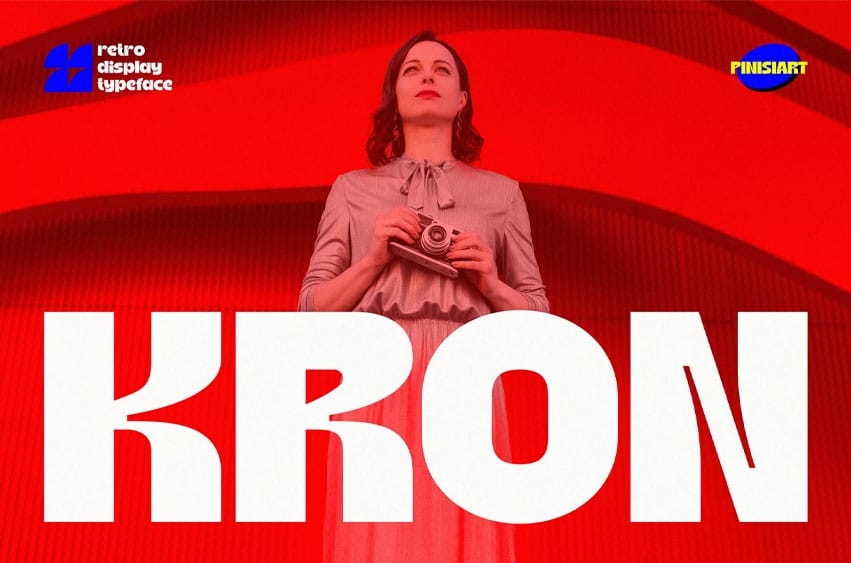
Kron Font is a bold display typeface designed to capture modern strength with a retro geometric flair. Its solid structure, tight spacing, and broad letter shapes create a sense of stability and authority — perfect for designs that need confident visual impact. Inspired by mid-century modern typography and classic industrial signage, KRON balances heavy proportions with smooth curves for a visually commanding presence.
Whether you’re crafting editorial headlines, brand logos, or large-scale posters, KRON’s clear geometry and minimal contrast make every word feel structured, powerful, and visually magnetic.
KRON thrives in design contexts that demand attention and memorability — from fashion campaigns and product packaging to cinematic posters and coffee cup branding. Its letterforms project confidence, helping your message stand tall across social media graphics, marketing visuals, and advertising layouts. Designers seeking a bold typographic anchor for lifestyle, architecture, or retail brands will find KRON both versatile and timeless.
Key Features :
- Geometric Strength: Balanced structure with bold proportions for maximum readability.
- Retro Modern Appeal: Inspired by 70s revival aesthetics and mid-century design culture.
- Attention-Commanding Headlines: Ideal for branding, packaging, billboards, and editorial design.
- Professional Versatility: Works across digital and print media with consistent impact.
- Design Harmony: Smooth letter spacing ensures balanced compositions in any layout.